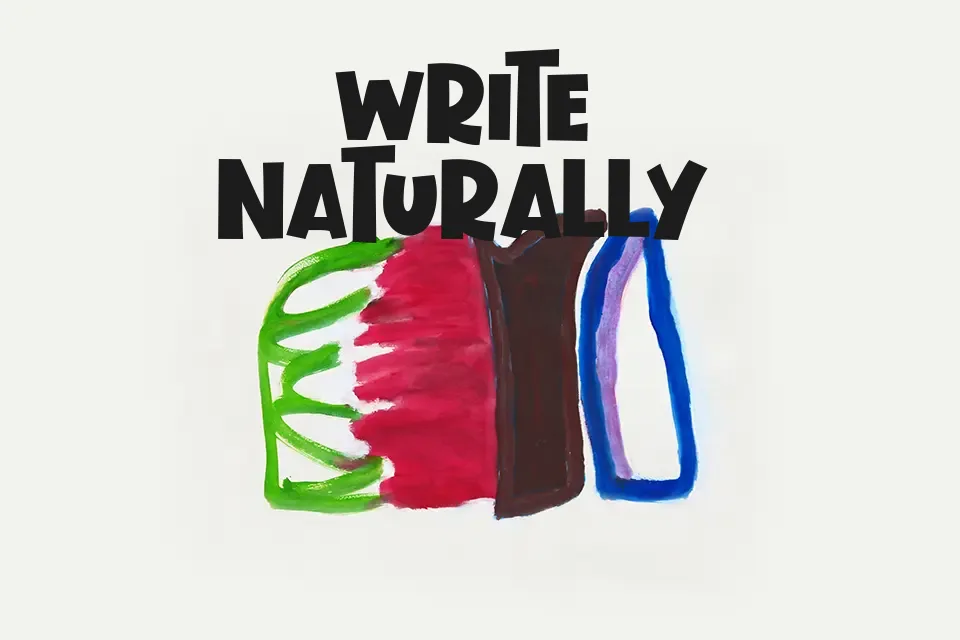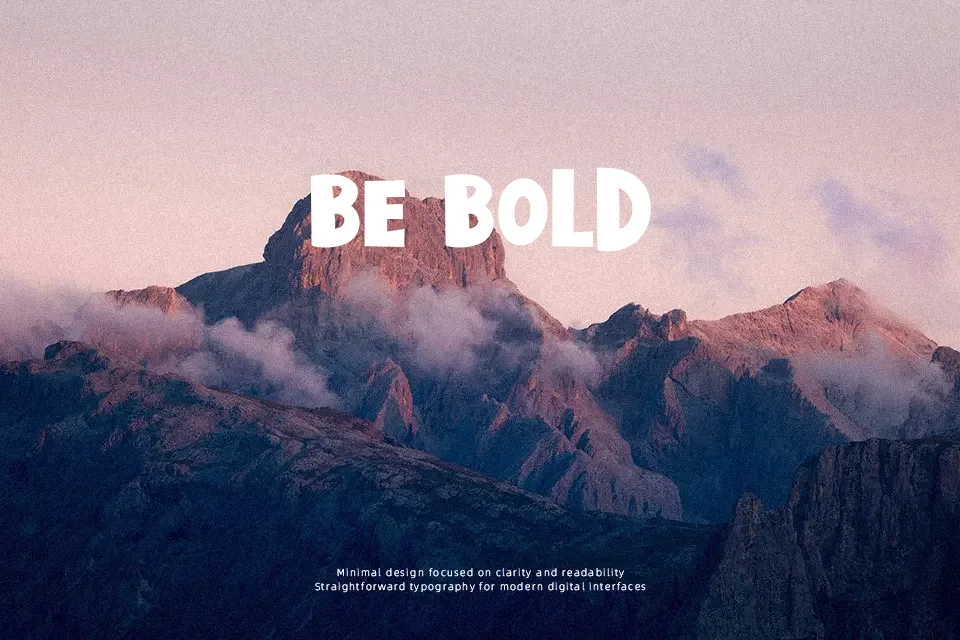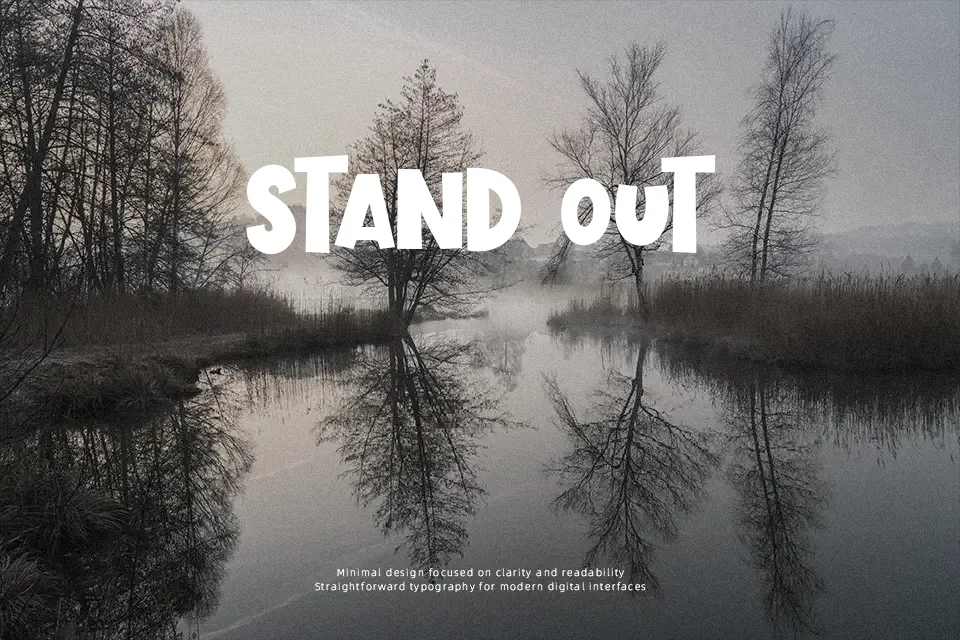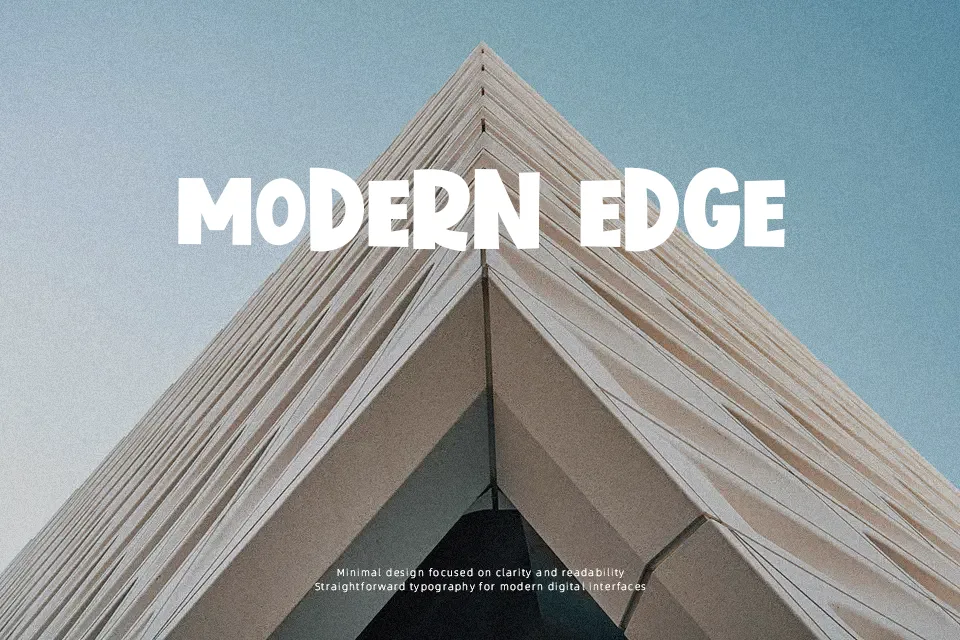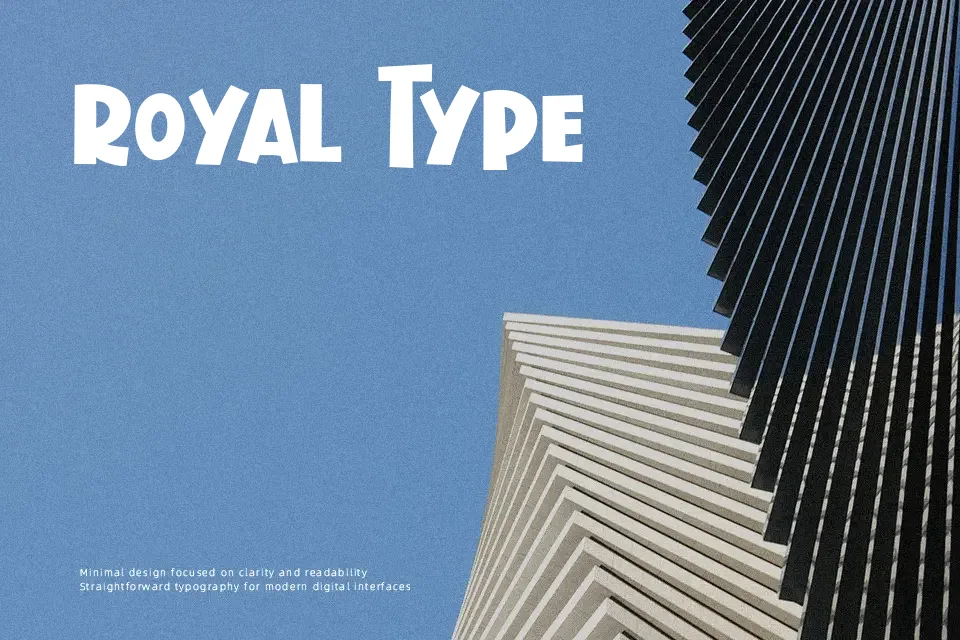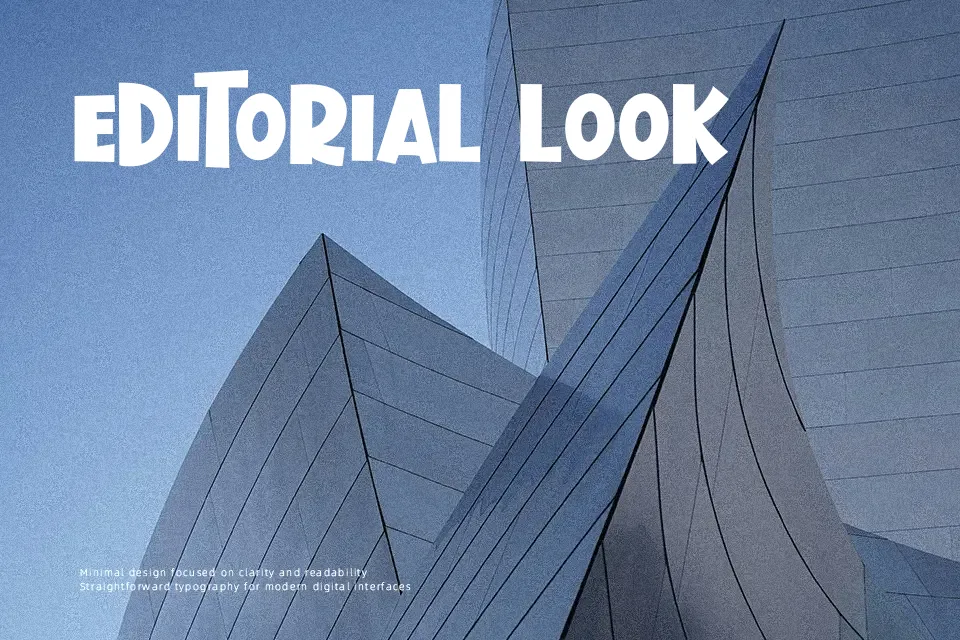
Blitzen Deer Font
Blitzen Deer is a lively cartoon display font characterized by its thick, rounded strokes and bouncy, organic structure. The letters possess an uneven, dynamic baseline that immediately delivers a cheerful and casual impression. This decorative typeface works exceptionally well for attention-grabbing headers on holiday merchandise, vibrant event posters, or colorful packaging for children’s toys. Because it carries such a heavy visual weight, it stands out beautifully in large formats but struggles with legibility at smaller sizes. You should avoid using it for long paragraphs, corporate identity materials, or formal editorial layouts, as the whimsical curves can overwhelm the reader. Ultimately, Blitzen Deer brings a handcrafted warmth that easily elevates fun-focused creative projects.
– Playful children’s book titles and toy packaging
– Festive holiday greeting cards and event posters
– Casual brand logos that need a friendly touch
– Dense paragraphs and small body text
– Corporate or highly formal branding materials
– Minimalist user interfaces requiring strict alignment
Perfect for christmas, holiday, and kids, with a bold and cartoon style.